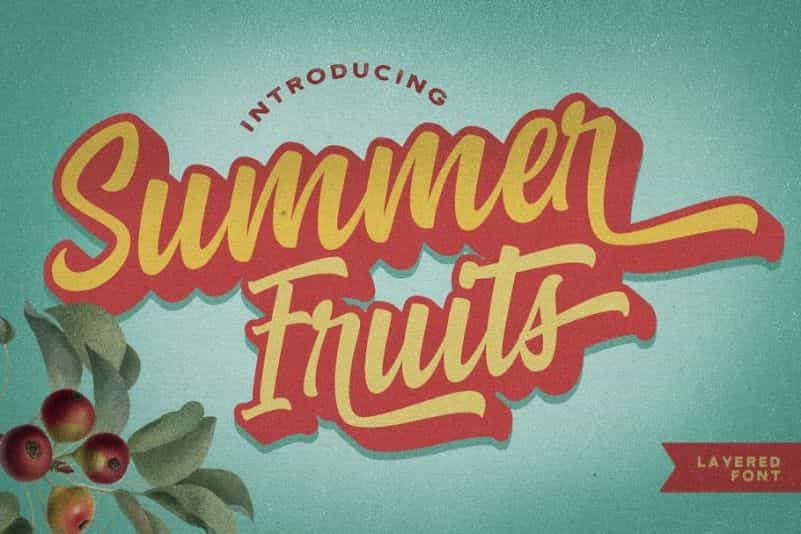
Introducing, Summer Fruits Font. Wonderful hand lettering that is bold, script typeface with a retro feel, attractive swashes and alternates! Each and every letter has been meticulously designed to make your text looks lovely.